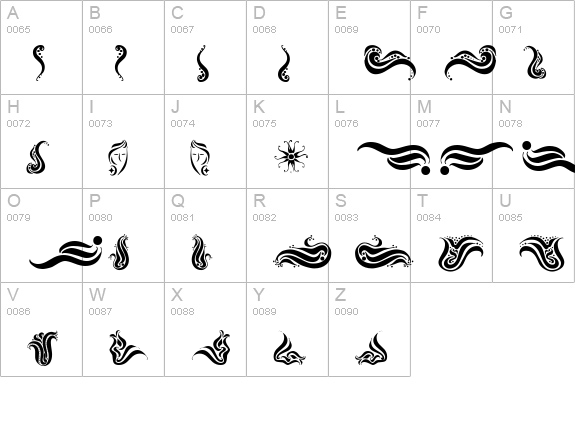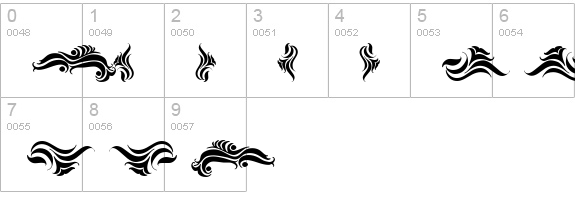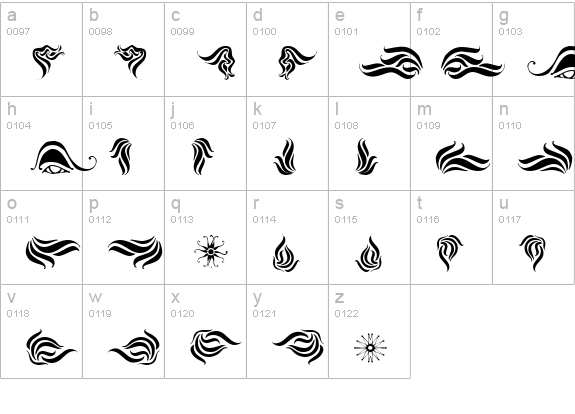
Absinth Flourishes II Font Details
Absinth Flourishes II is a beautifully intricate and elegant font that exudes a sense of sophistication and charm. With its delicate flourishes and ornate details, this font is perfect for adding a touch of luxury to your designs. Whether you are creating wedding invitations, branding materials, or any other project that calls for a touch of elegance, Absinth Flourishes II is sure to impress. What makes Absinth Flourishes II even more appealing is the fact that it is available for free download at FontsMarket.com. This means that you can easily access this stunning font and use it in your projects without any cost. Don't miss out on the opportunity to elevate your designs with the timeless beauty of Absinth Flourishes II. Download it today and let your creativity flourish!